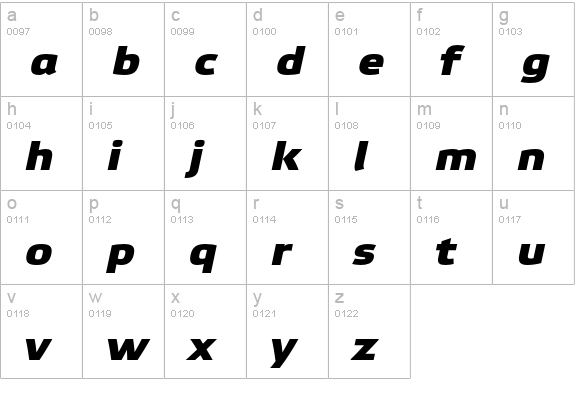
Etelka Wide Medium Pro Bold Italic Font Details
Etelka Wide Medium Pro Bold Italic is a balanced, medium-weight, extended-width, italic variant in the Etelka typeface family \xE2\x80\x94 well suited to sub-headlines, navigation, and balanced editorial work.
The Etelka Wide Medium Pro Bold Italic font is a stunning display typeface that exudes sophistication and elegance. Its bold and italic design adds a touch of flair to any project, making it perfect for headlines, logos, and other prominent text. The wide width of the characters gives the font a strong presence and ensures that it stands out on the page. This versatile font is suitable for a wide range of design applications, from print materials to digital projects. Whether you're designing a poster, website, or branding materials, the Etelka Wide Medium Pro Bold Italic font will make a bold statement and leave a lasting impression. Best of all, this premium font is available for free download at FontsMarket.com. So, you can enhance your designs with this professional and eye-catching typeface without breaking the bank. Don't miss out on the opportunity to elevate your projects with the Etelka Wide Medium Pro Bold Italic font today!